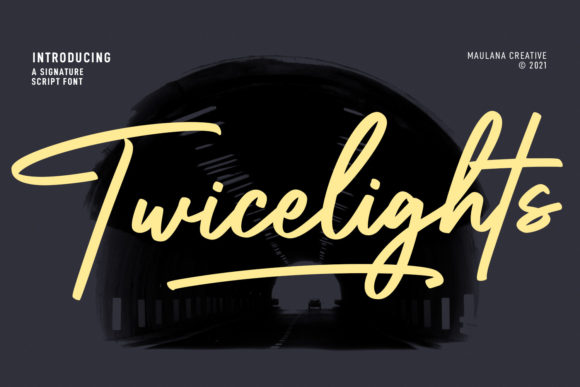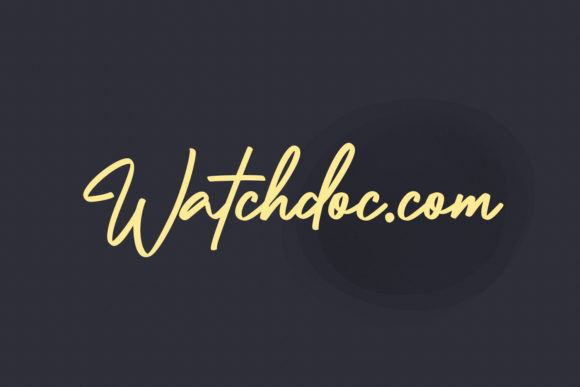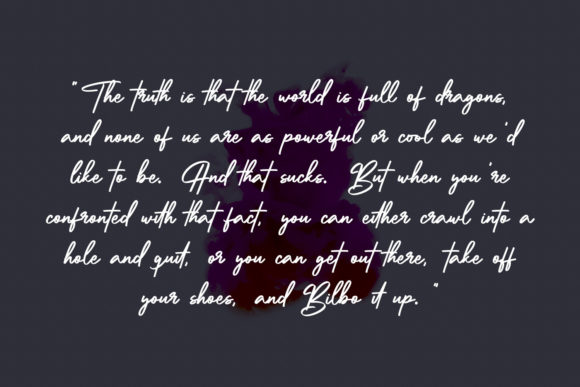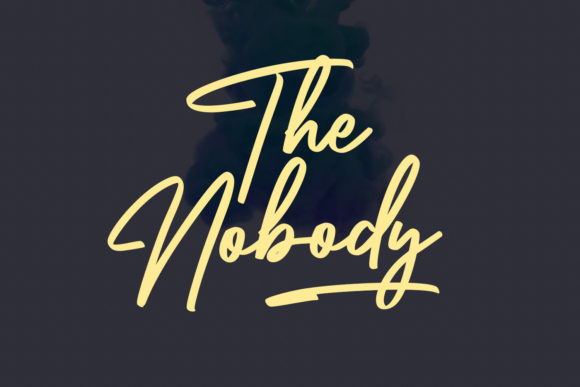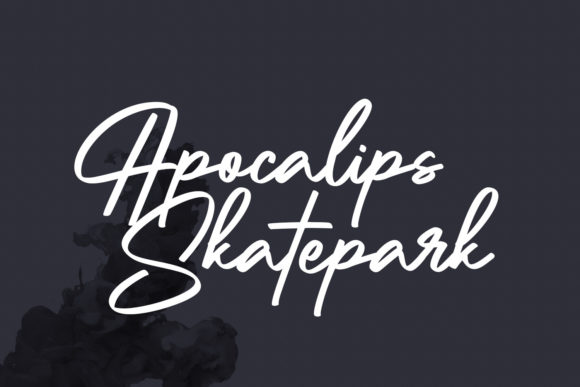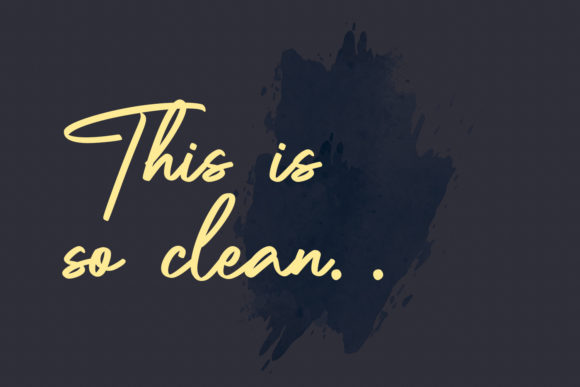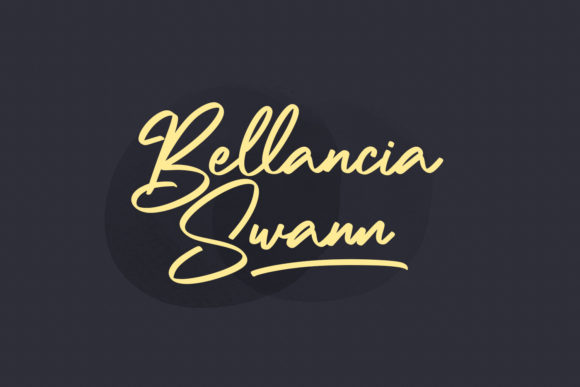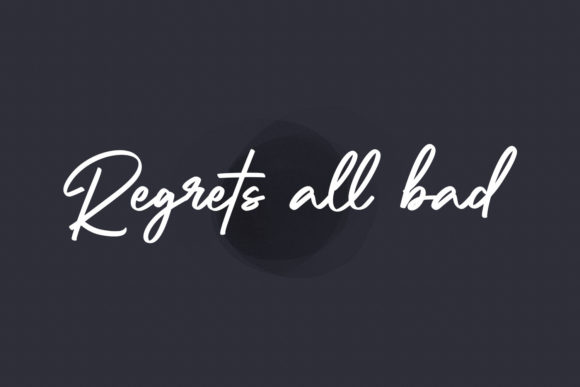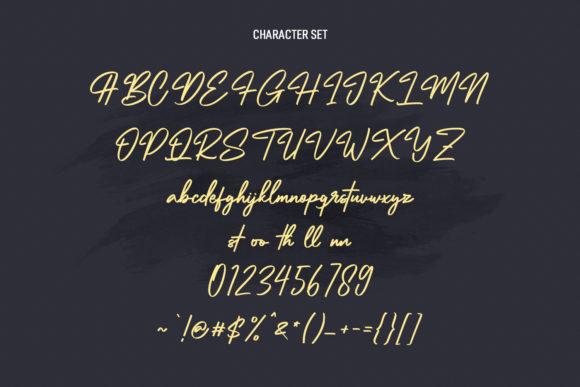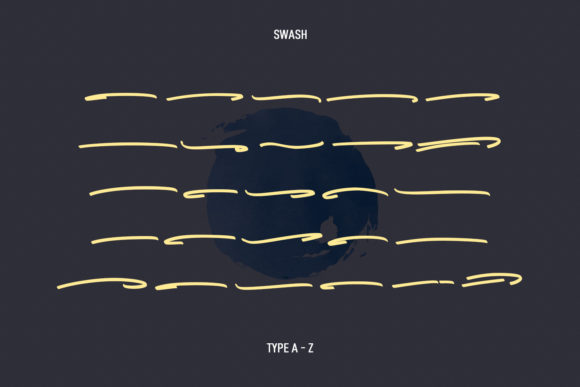
Twicelights Signature Script Font
About Twicelights Signature Script Font
Twicelights is a signature script font. This font is the perfect choice for logo design, social media, movie titles, and books titles.